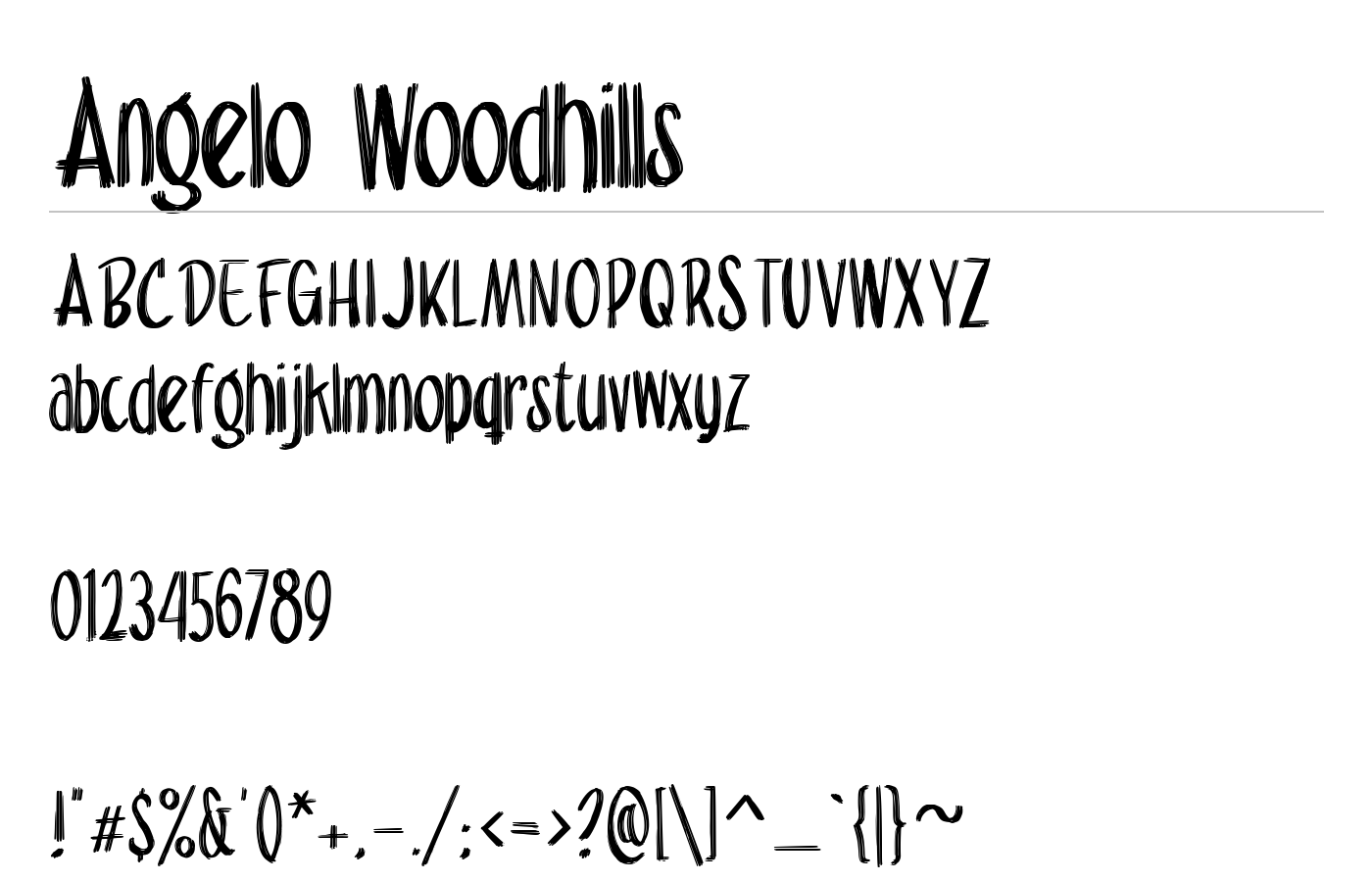
Angelo Woodhills is a playful, hand-drawn sans serif font with a narrow, tall structure and uneven, textured strokes that create a lively, casual feel. Its quirky letterforms and irregular lines convey a youthful, creative vibe, making it great for informal branding, posters, or fun editorial projects where personality and spontaneity are key. This font works best in headlines or short texts where a distinctive, artistic touch is desired.
Angelo Woodhills Font
About Angelo Woodhills Font